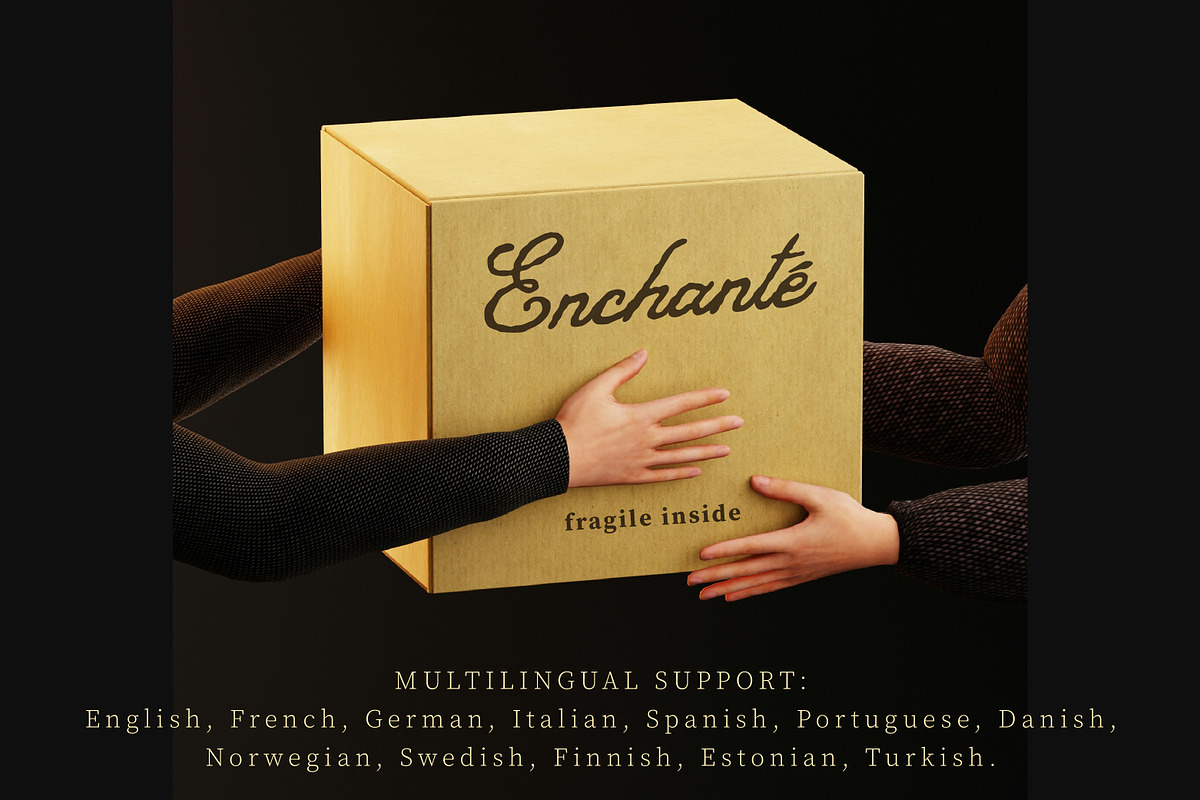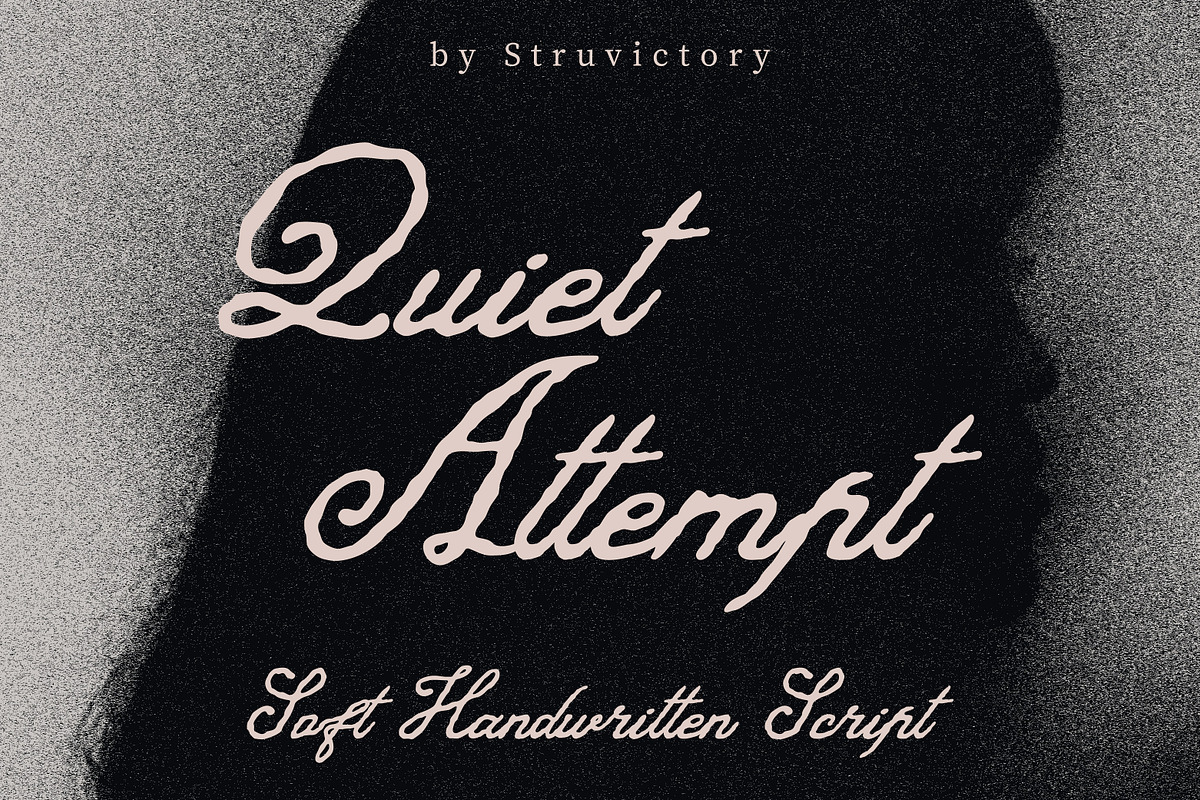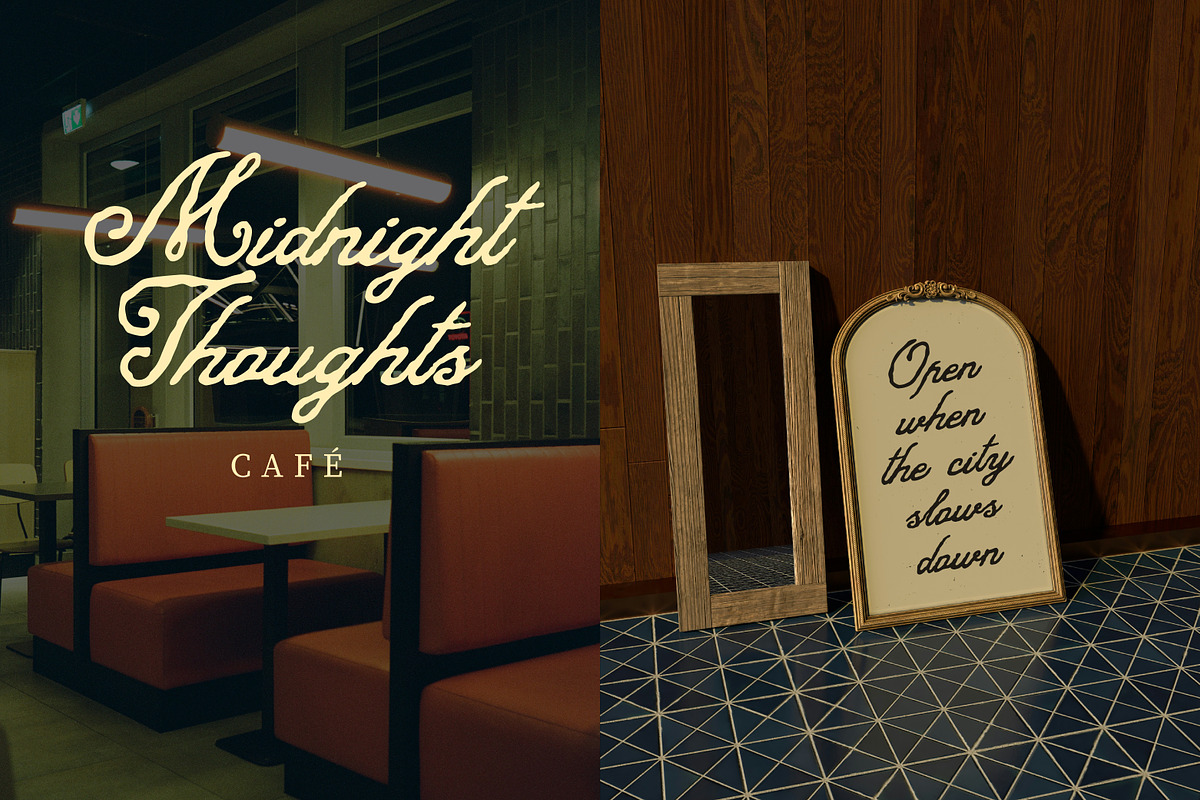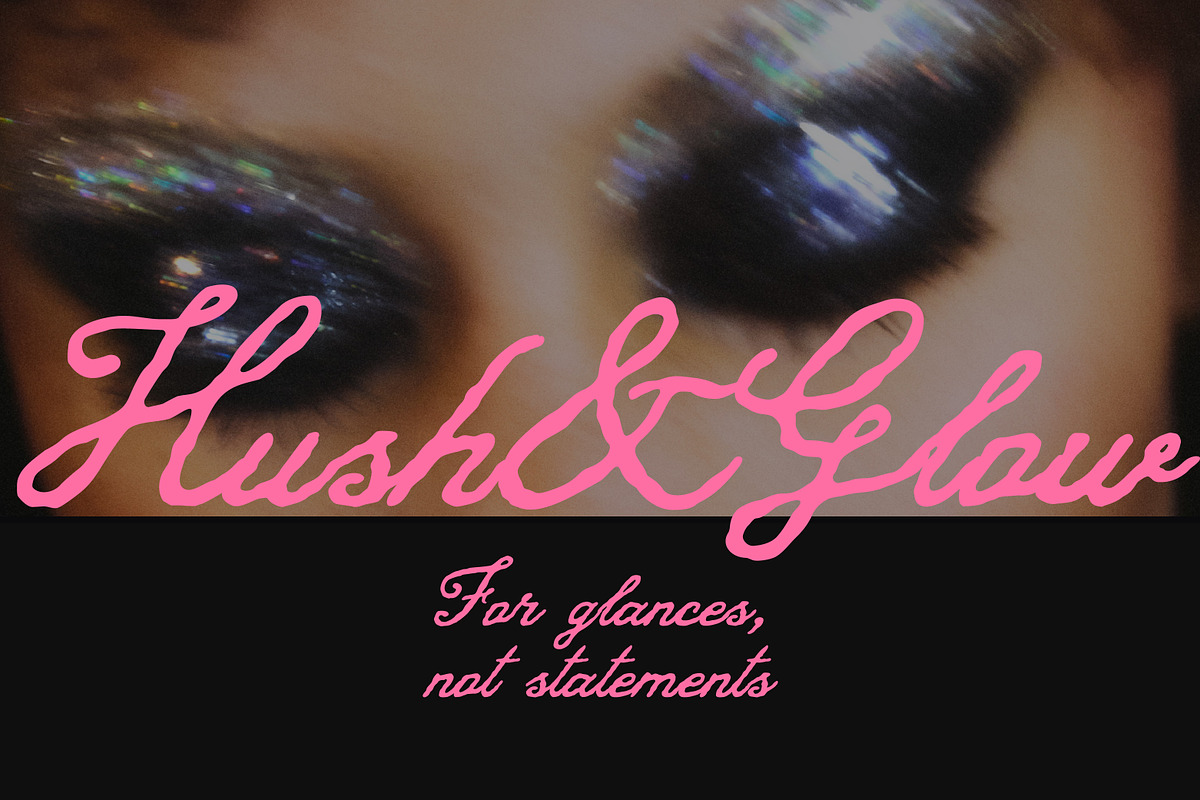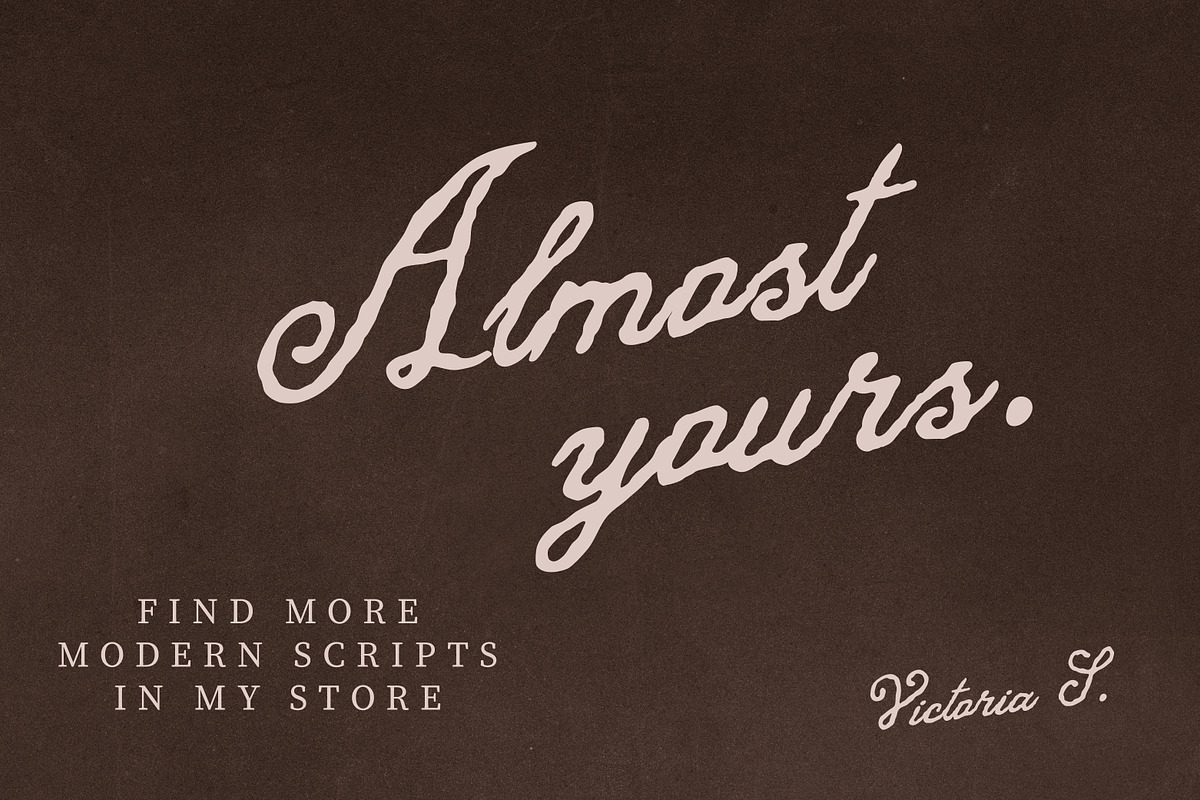
Quiet Attempt Love Handwritten Font
Quiet Attempt is a soft handwritten script with trembling strokes and gentle ink flow, designed to feel personal, imperfect, and deeply human. Inspired by quiet emotions, love notes, and words written with hesitation, this font captures a delicate balance between romance and vulnerability. Its organic letterforms and subtle irregularities make it perfect for intimate branding, café signage, editorial layouts, packaging, social media visuals, quotes, wedding stationery, and personal projects that need warmth rather than perfection. Quiet Attempt works beautifully in both short phrases and expressive headlines, adding a calm, emotional tone without feeling overly decorative.